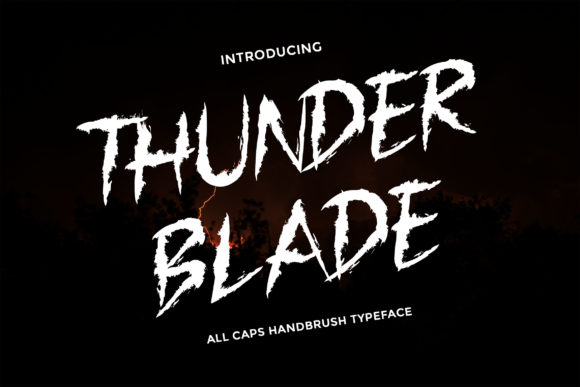
Behold, thunderous and captivating, Thunder Blade, a display font of epic proportions, is here to ignite your creative spirit and transport your designs to the realm of legends. This font is not just a collection of letters, it's a gateway to a world where words dance with power and stories unfold with thunderous intensity.
Crafted with meticulous attention to detail, Thunder Blade exudes a bold and dramatic presence that commands attention. Its sharp edges and dynamic curves create a visual symphony, reminiscent of lightning bolts crackling across the sky. Each character is a masterpiece, carefully designed to evoke a sense of grandeur and intrigue, making your designs radiate with an aura of sophistication and power.
Unleash your creativity and let Thunder Blade be your muse as you embark on new and captivating projects. Whether you're crafting film captions that echo with thunderous impact, creating posters that demand attention, or designing logos that leave a lasting impression, Thunder Blade will be your loyal companion, amplifying your message and captivating your audience.
With Thunder Blade at your fingertips, the ordinary becomes extraordinary. Your words will resonate with a newfound strength, leaving an unforgettable mark on the minds of those who encounter them. So, embrace the power of Thunder Blade and watch as your creative visions come alive with electrifying energy and captivating allure.